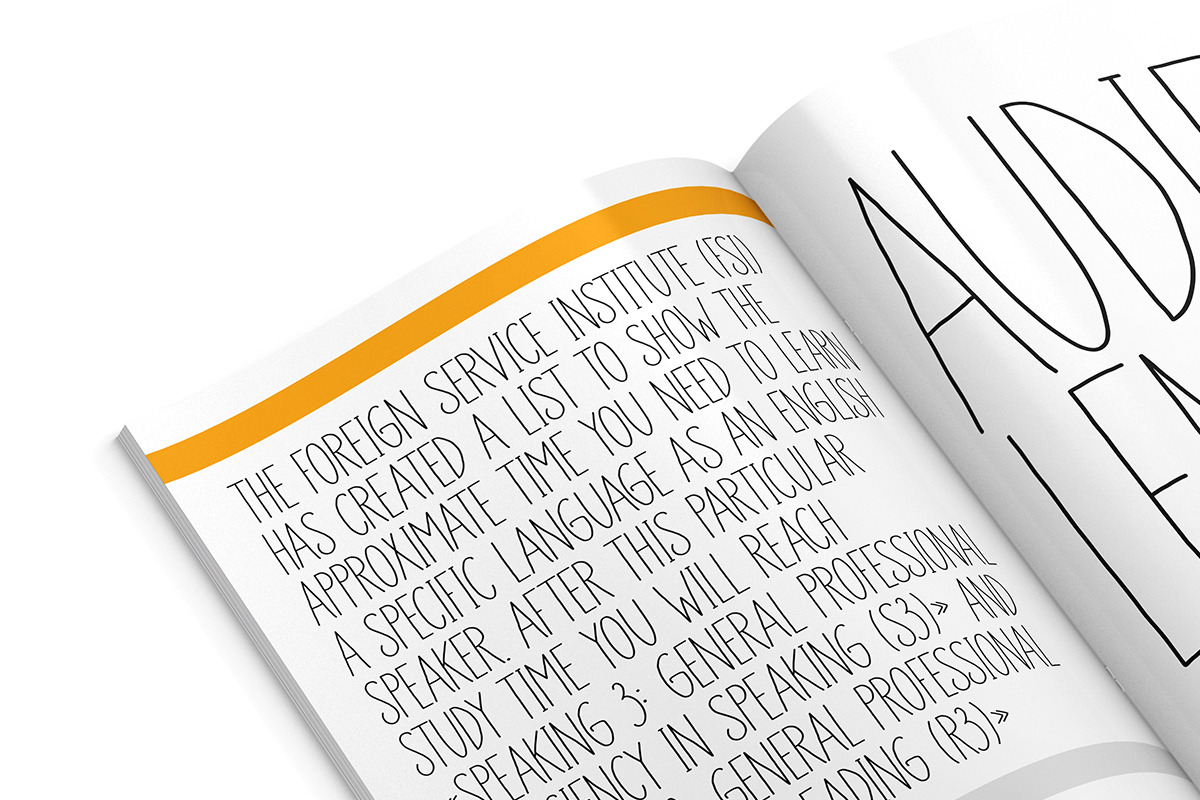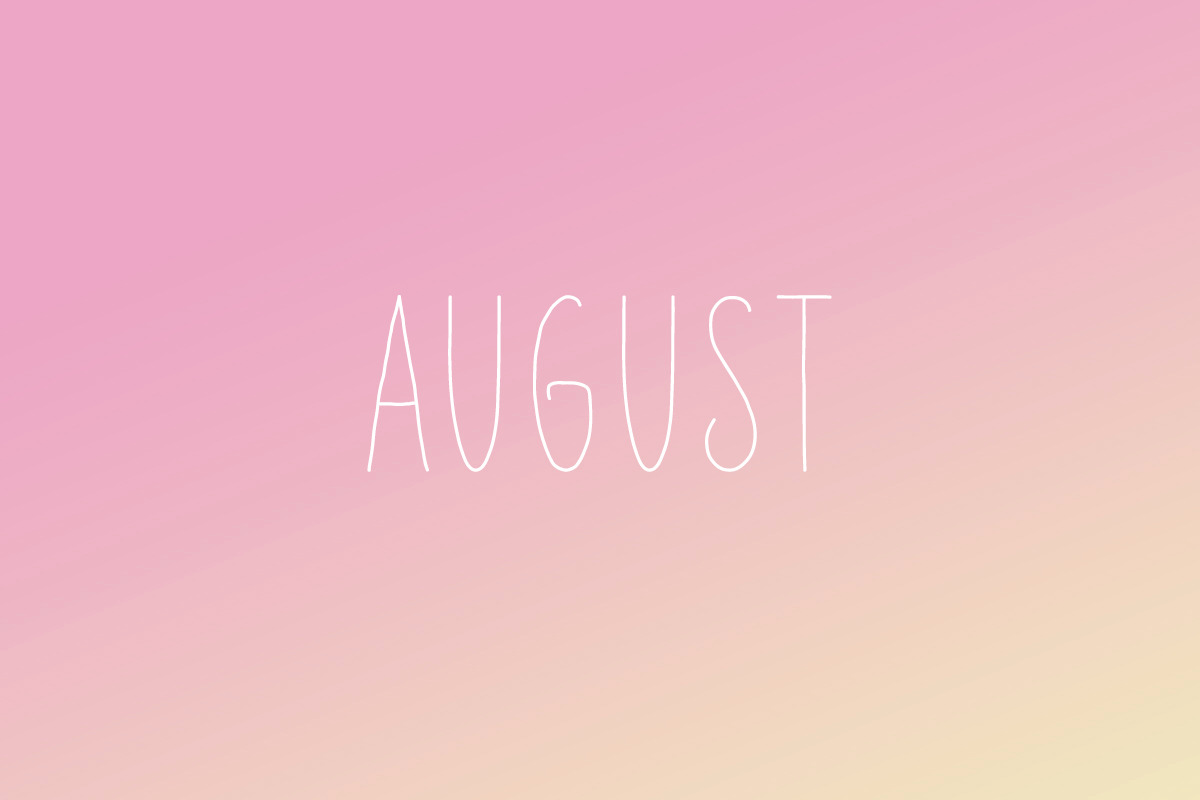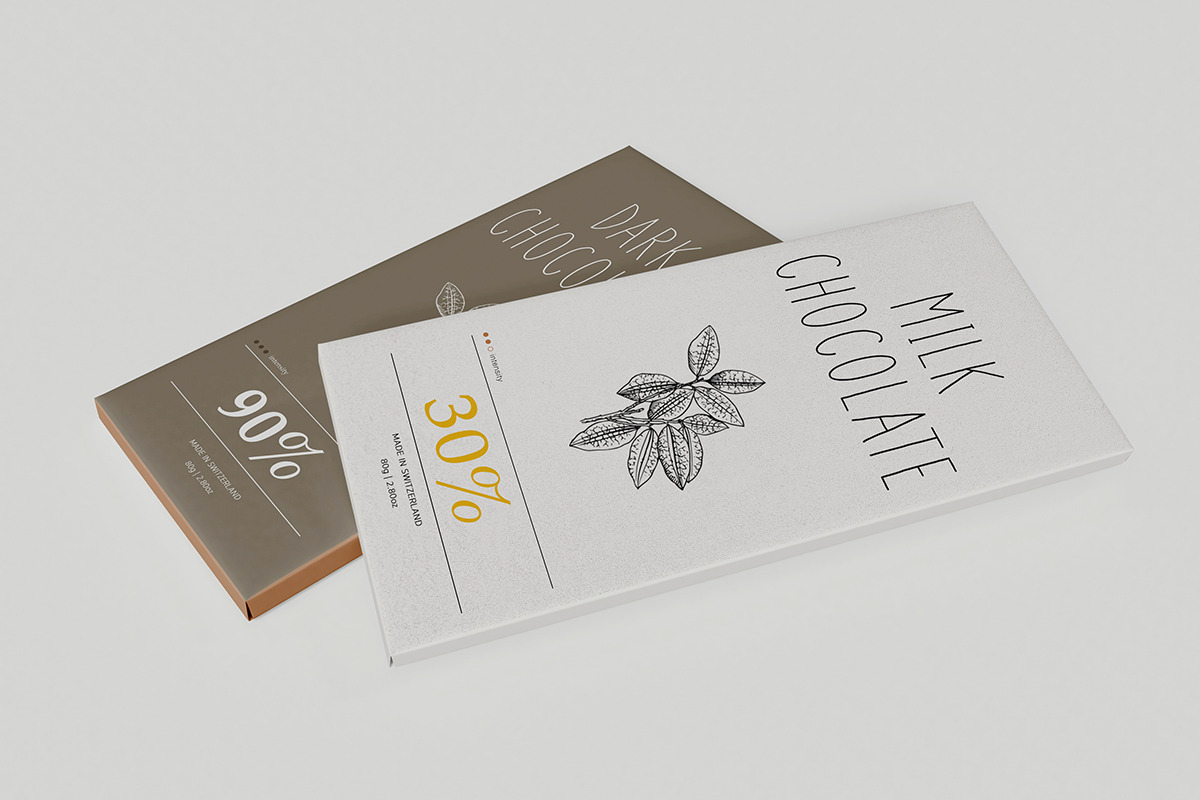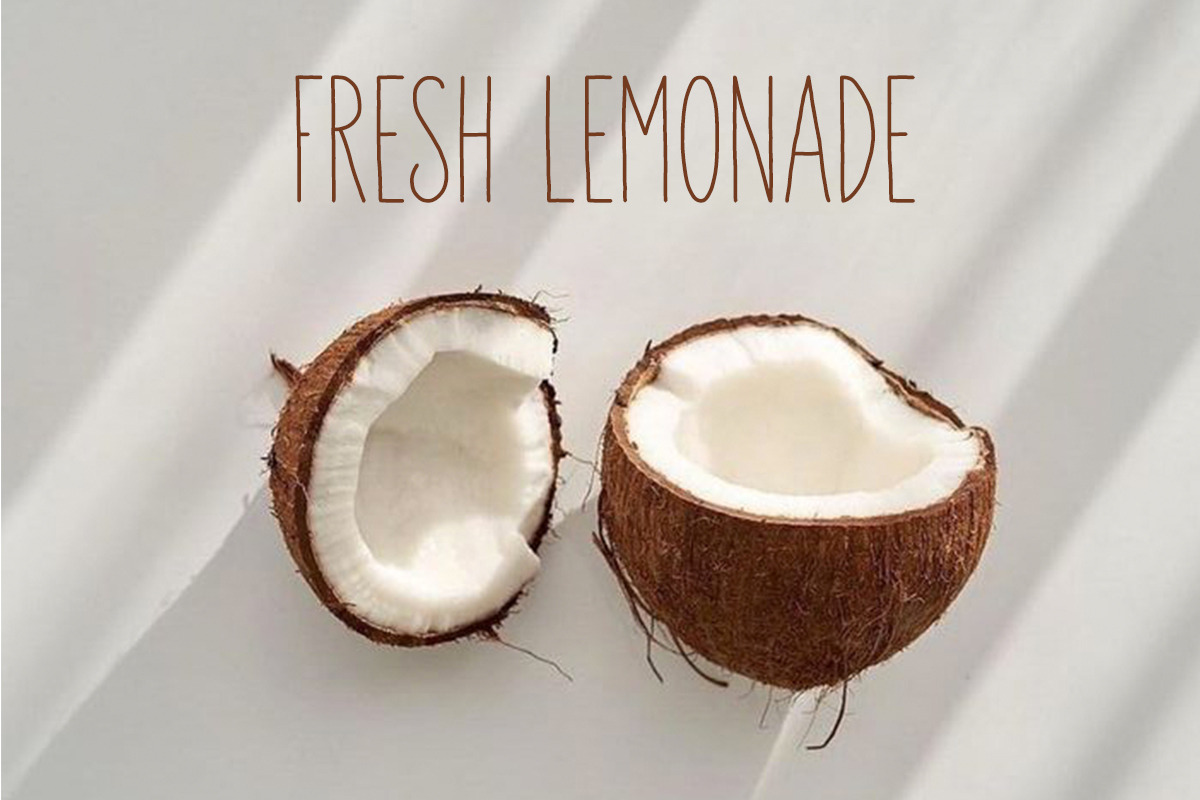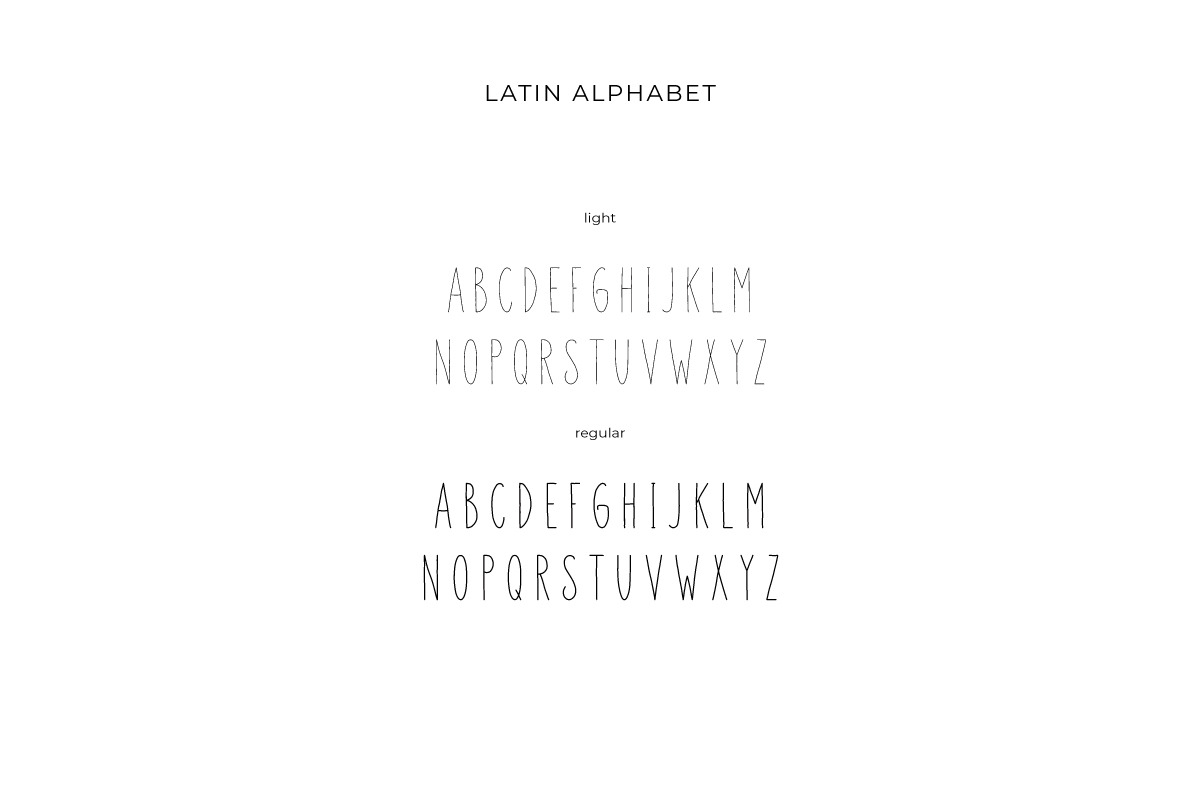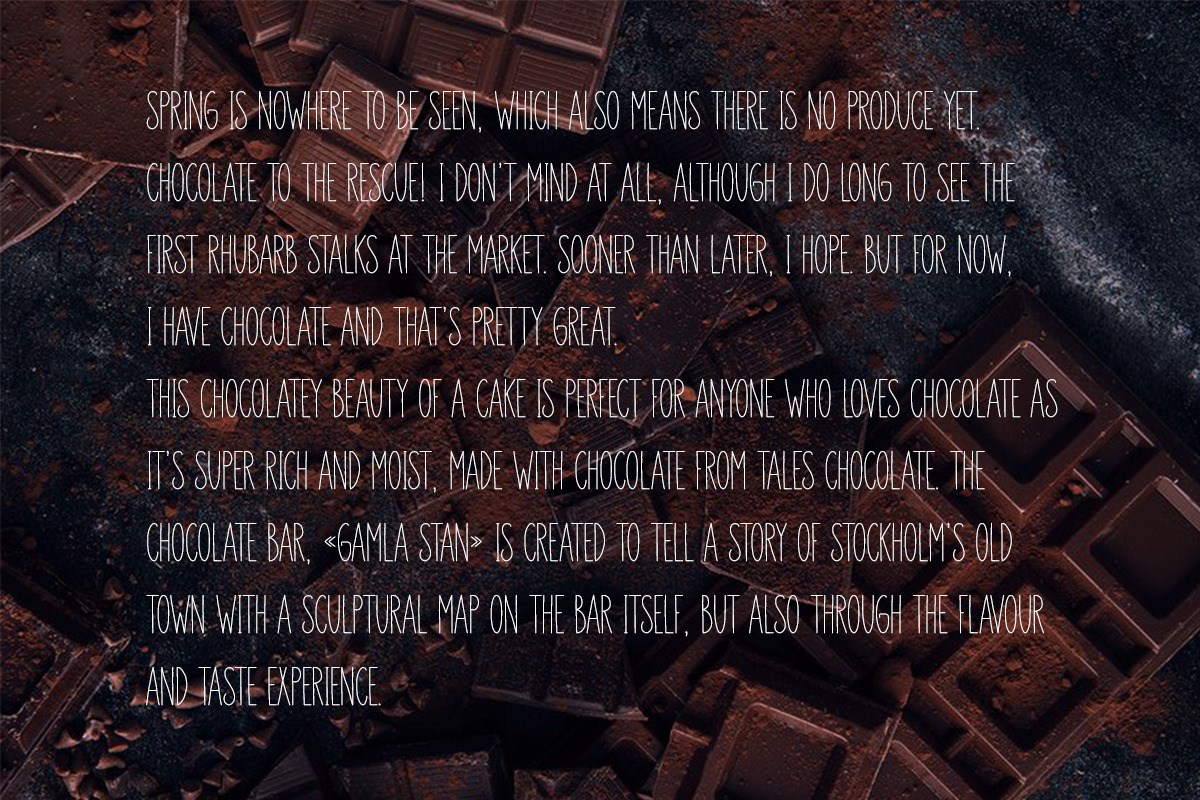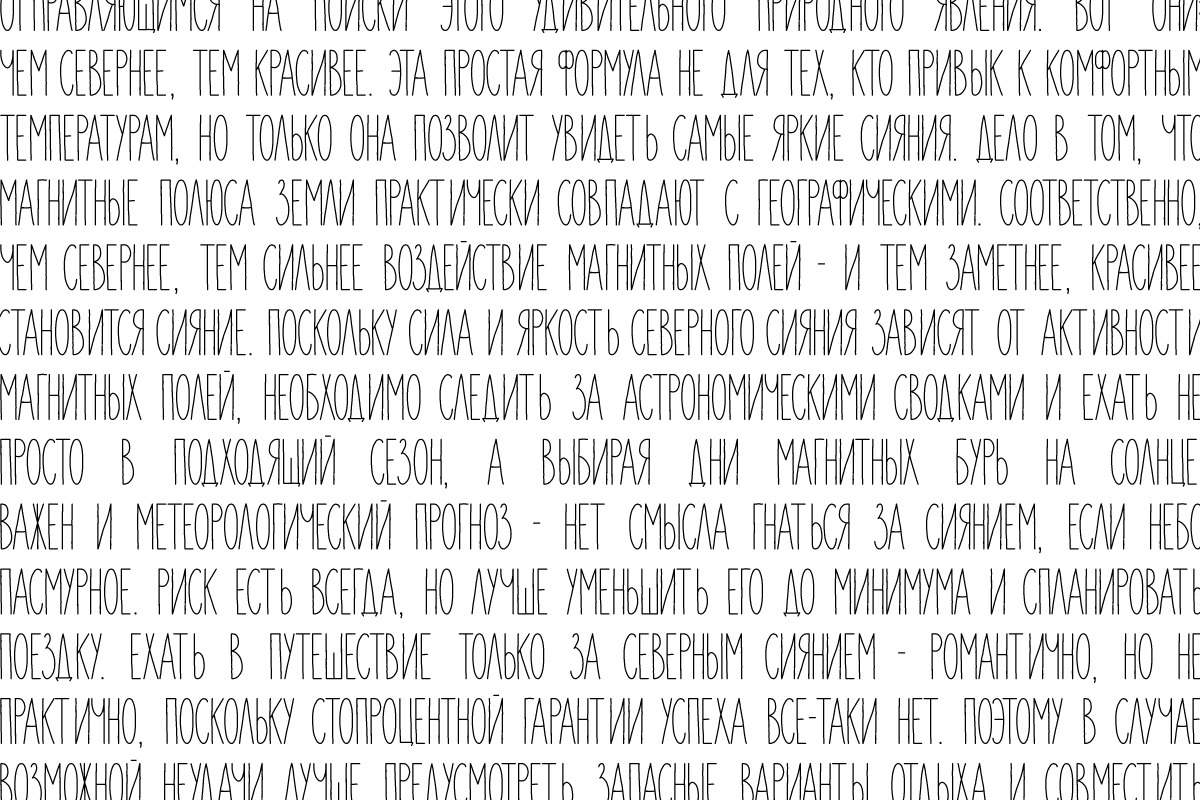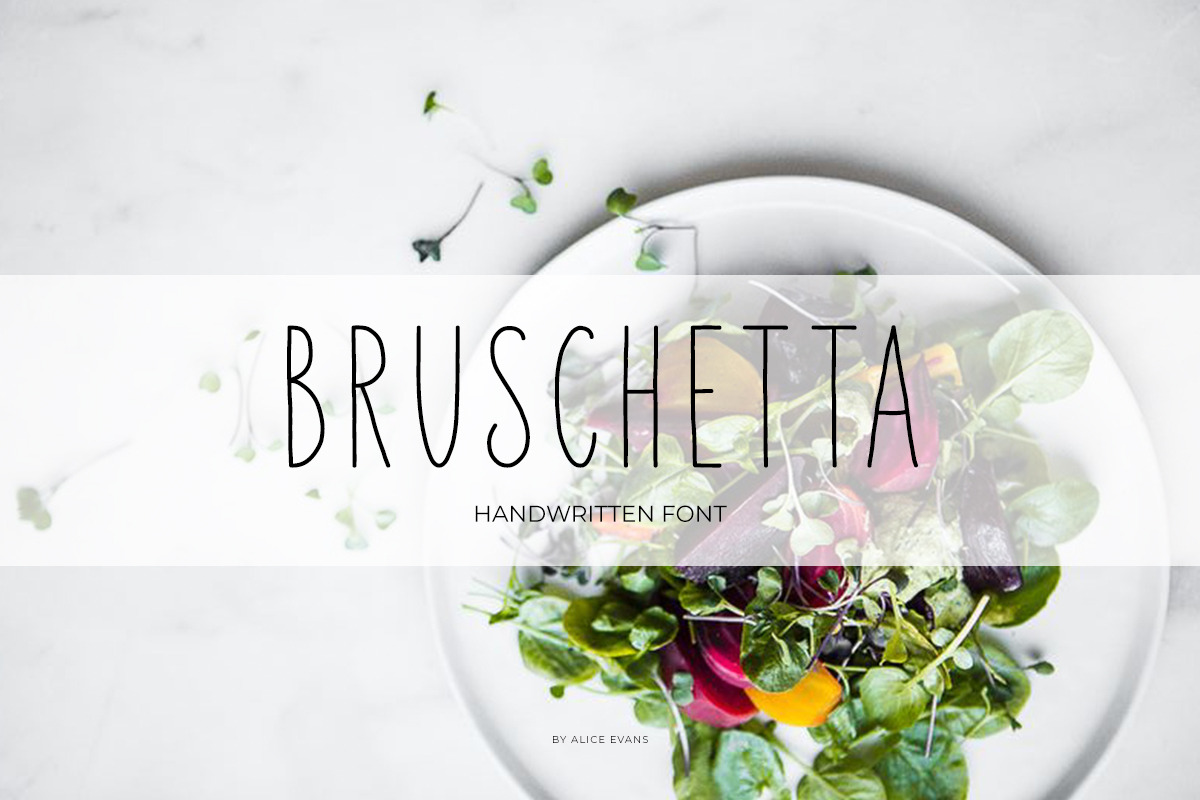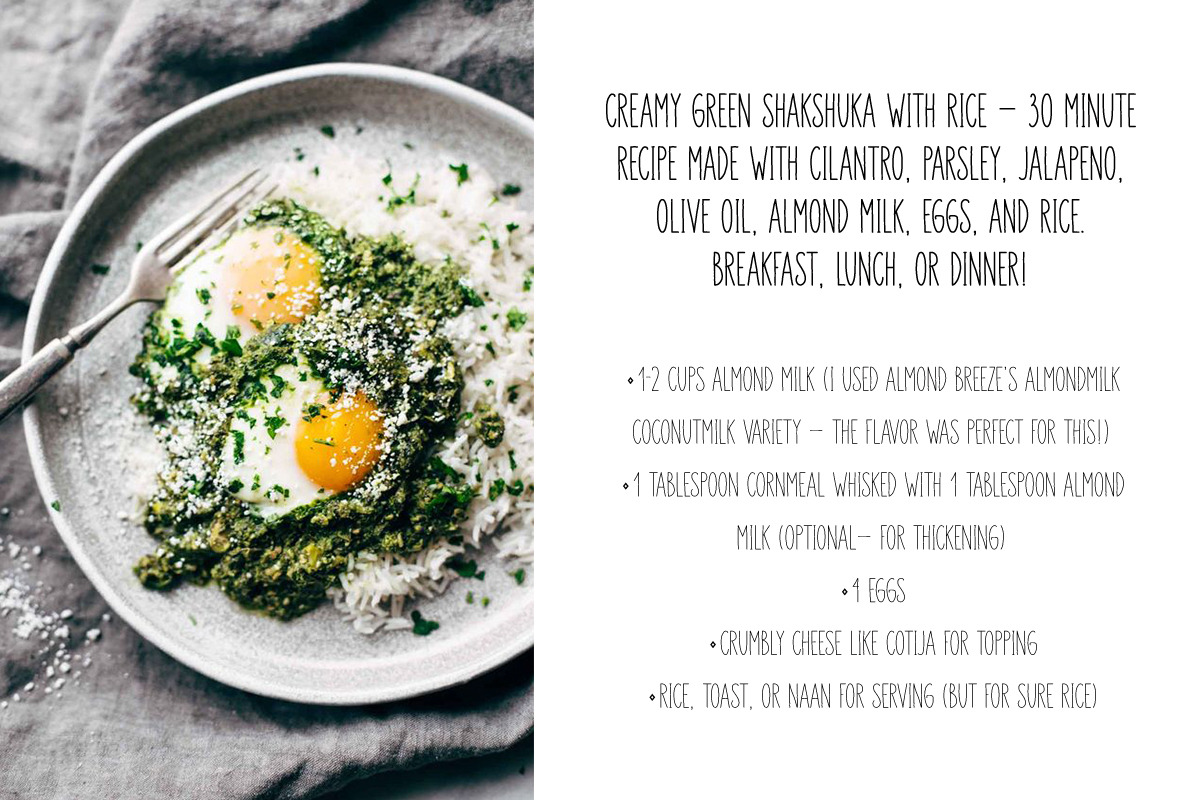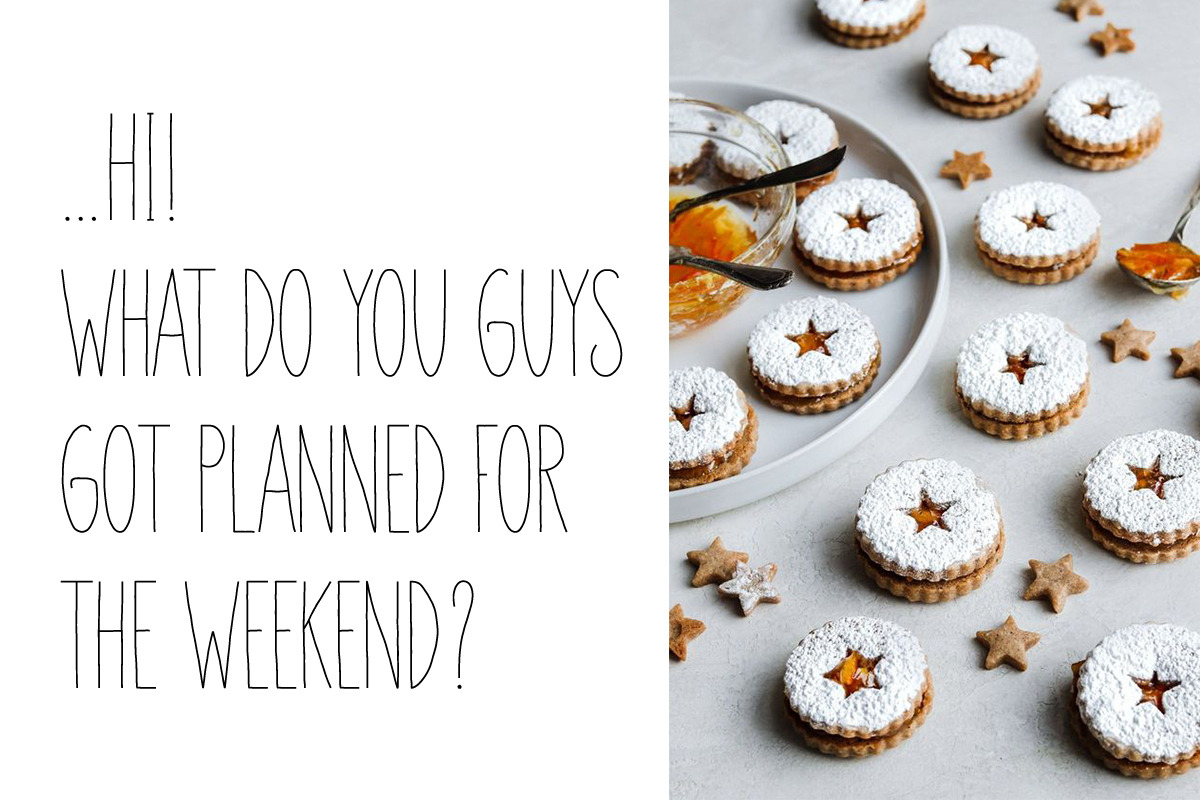
Bruschetta font
Bruschetta font is a 100% handwritten sans serif characters of Latin and Cyrillic alphabets, with foreign support, glyphs, numbers and punctuation. Looking fresh and perfectly suits for any kind of artworks: packaging design, landings, logos, books - it depends only from your imagination!
NOTE: The package contains the Uppercase letters only and available in two styles: regular and light.
Bruschetta features:
- x 26 Latin Uppercase characters in regular style
- x 26 Latin Uppercase characters in light style
- x 33 Cyrillic Uppercase characters in regular style
- x 33 Cyrillic Uppercase characters in light style
- 0-9 numbers
- foreign languages supporting glyphs
- punctuation symbols